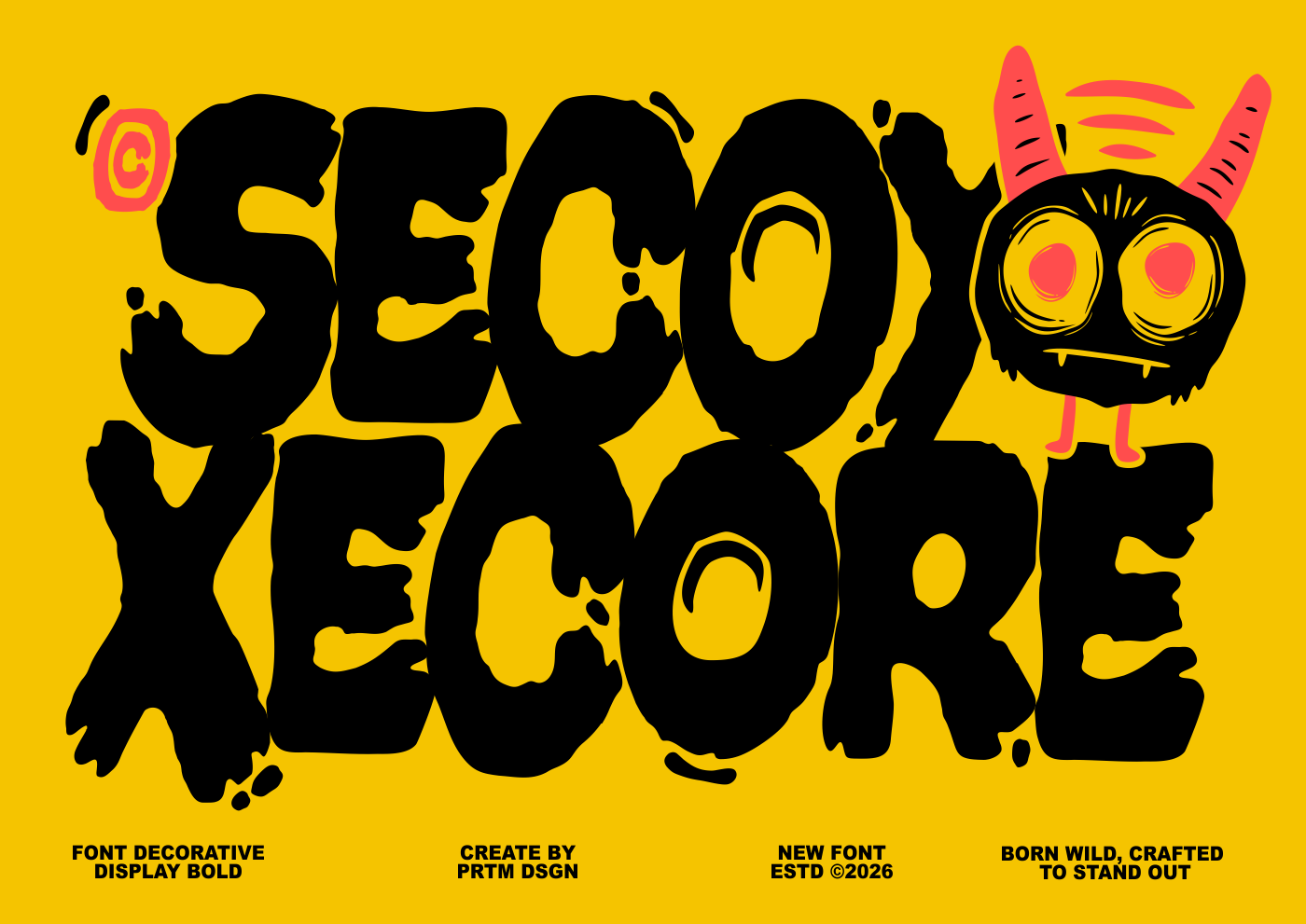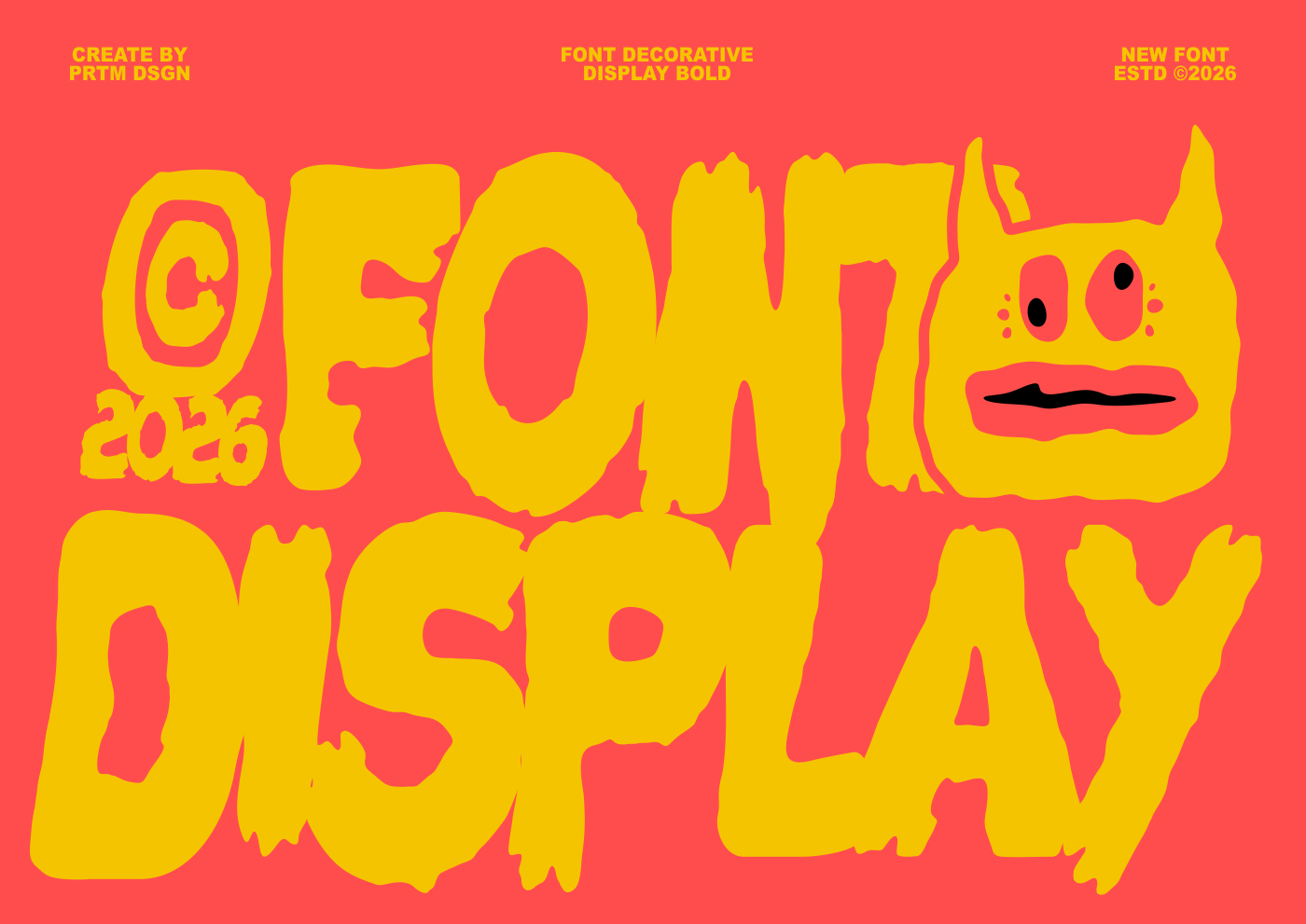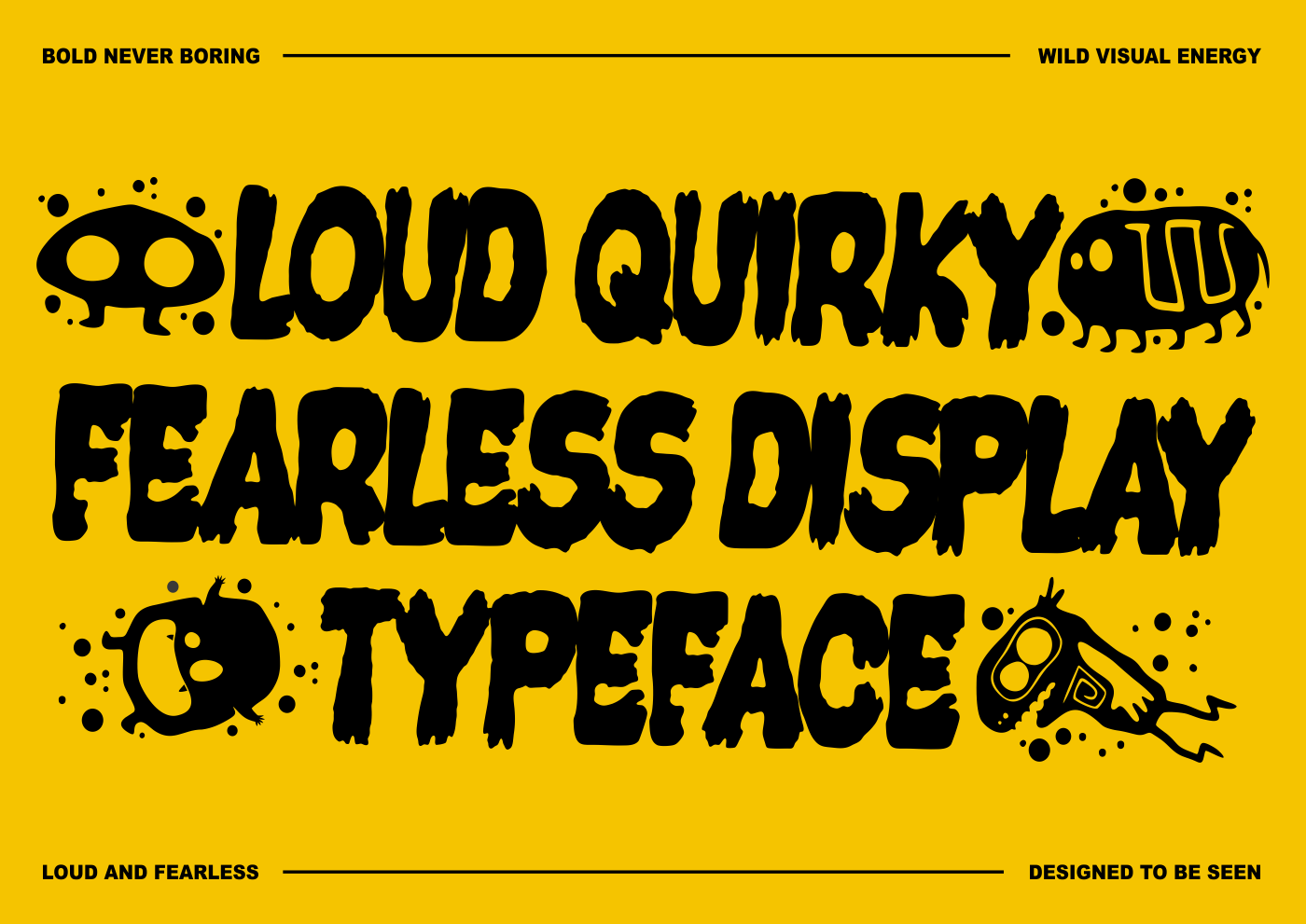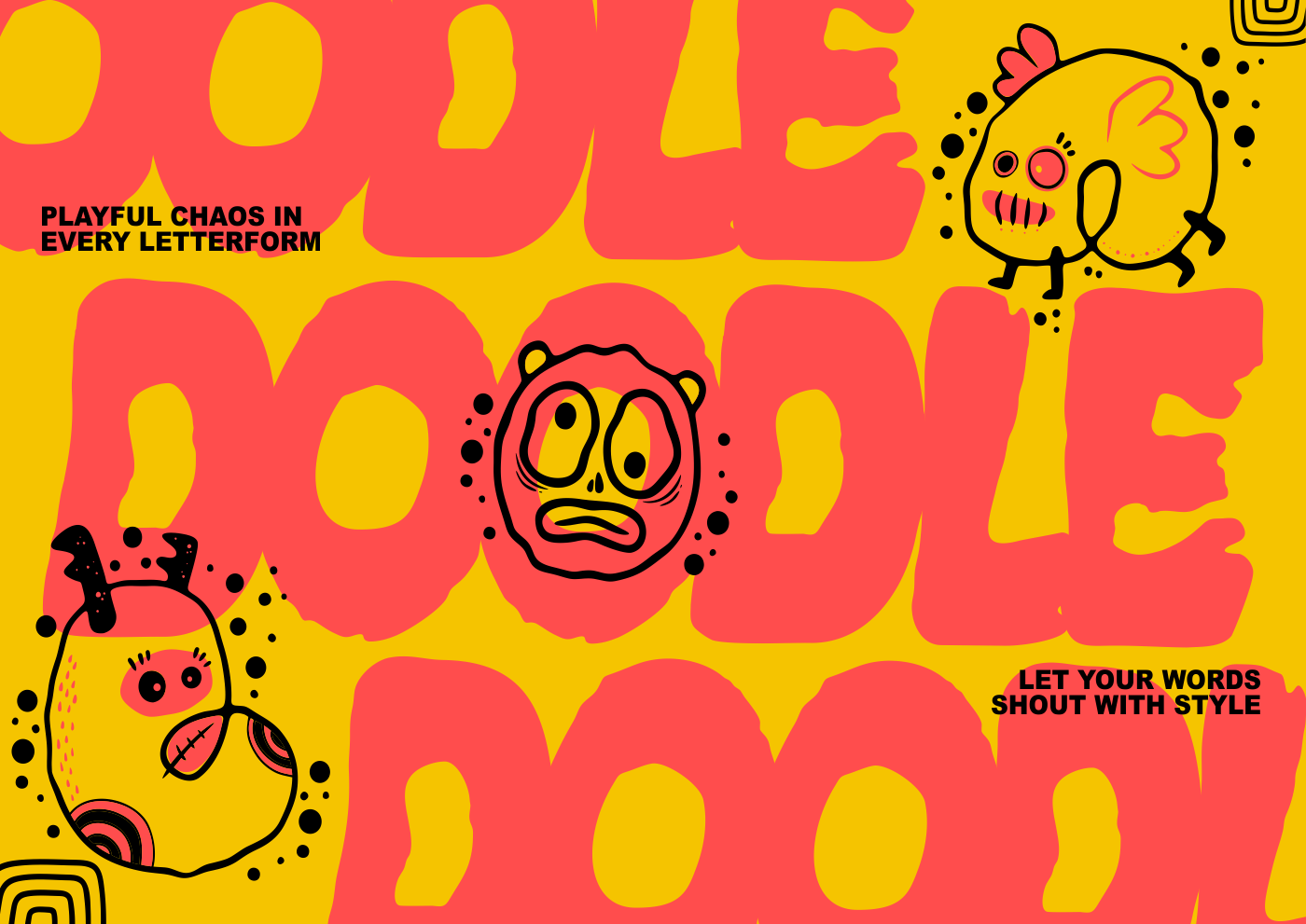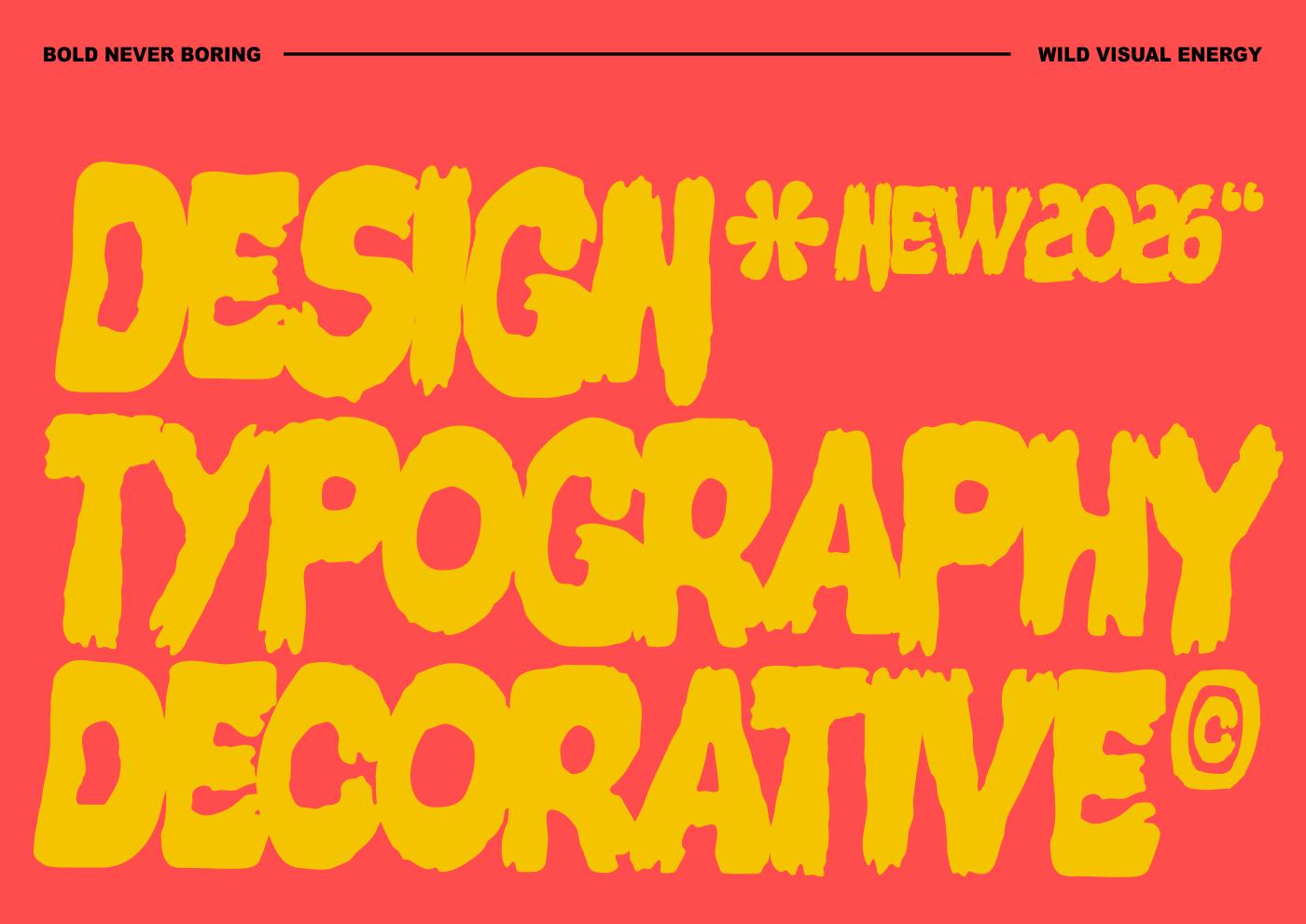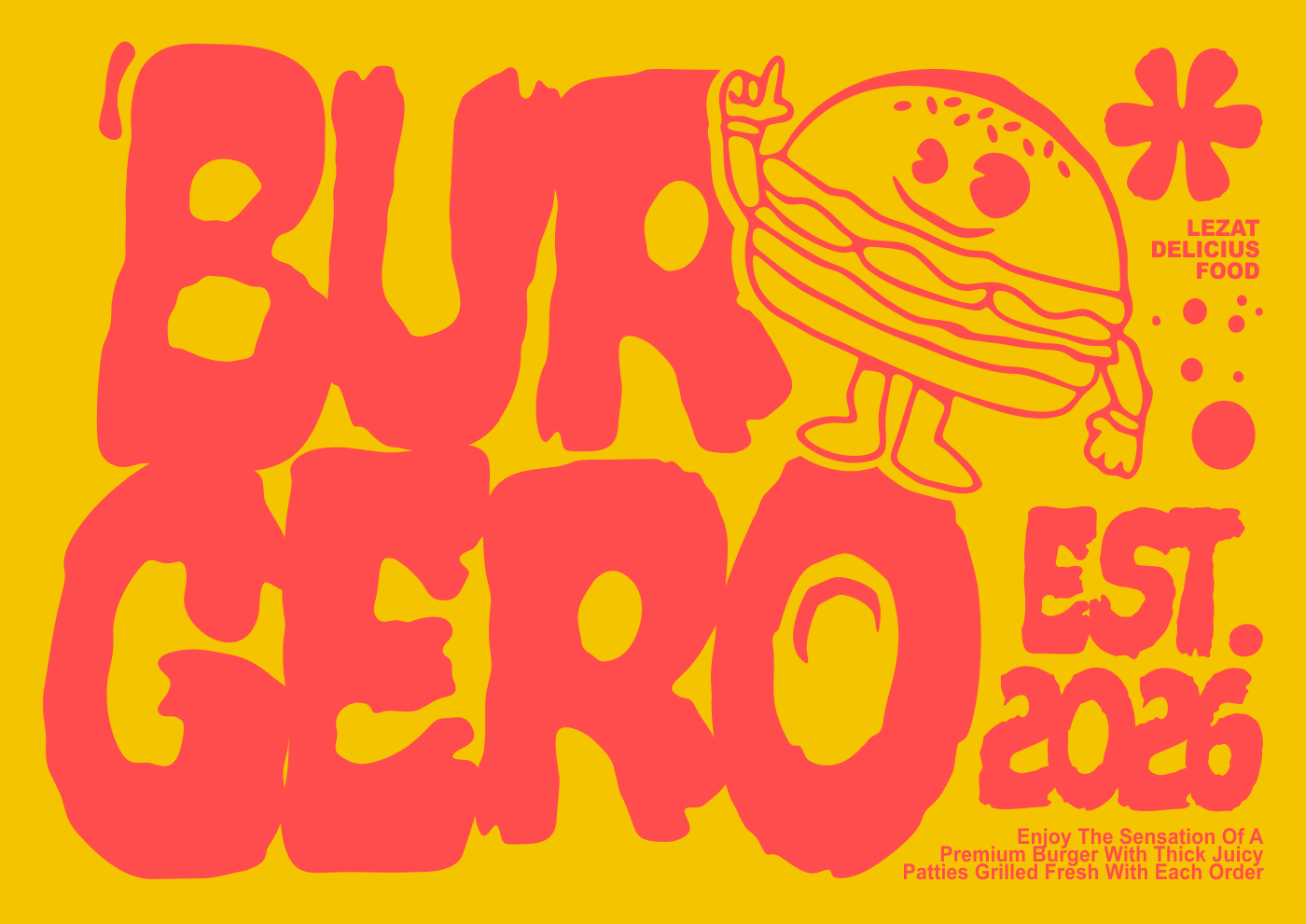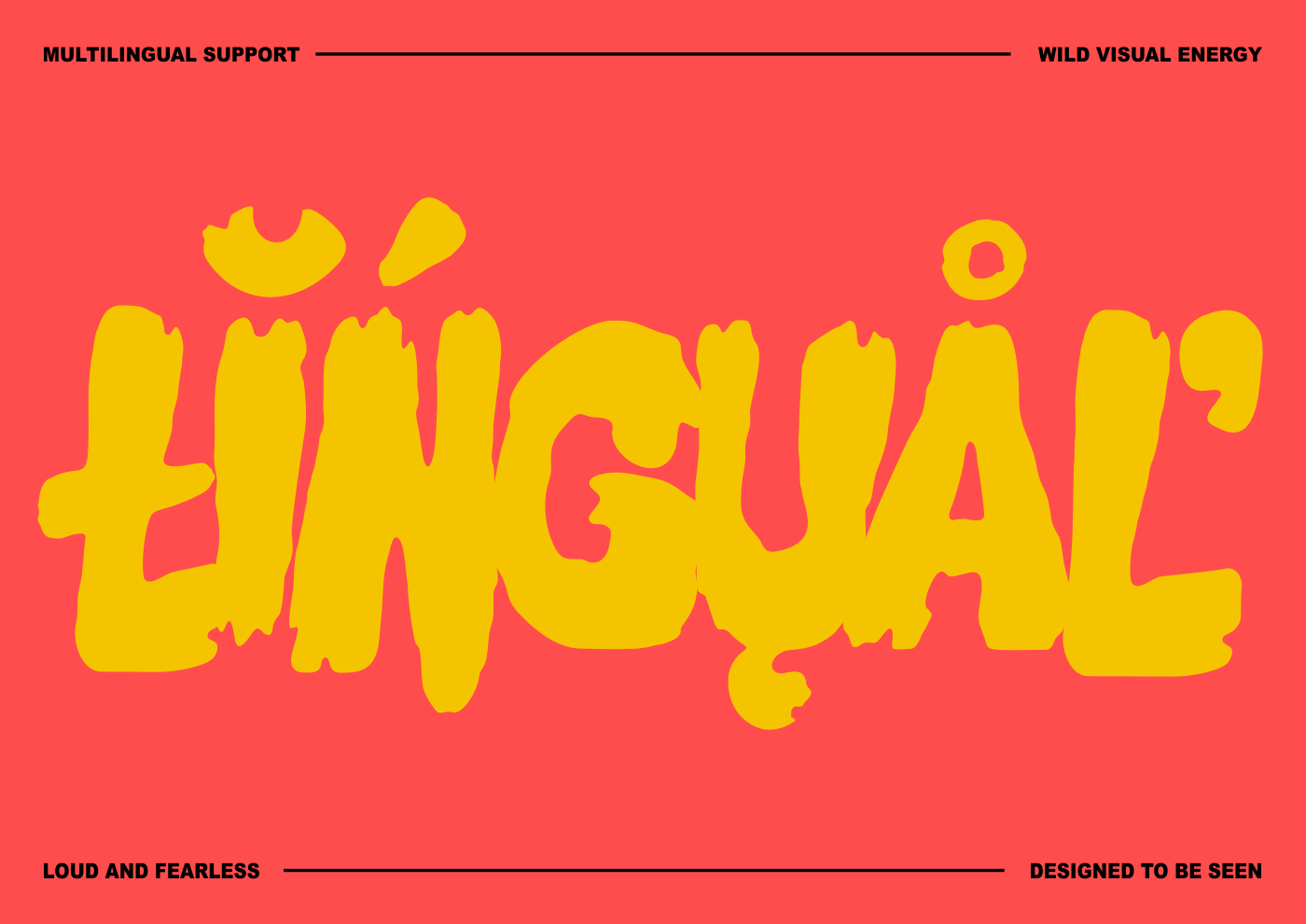
Introducing a bold, decorative typeface that breaks the rules and embraces imperfection. Designed with bold, hand-drawn shapes and rough, organic edges, this font delivers a strong visual impact with a playful yet rebellious personality. Each letter feels vibrant, uneven, expressive, and full of movement, making it perfect for projects that demand attention. Enhanced with unique illustrative elements and experimental shapes, this typeface transcends traditional typography and becomes a visual statement. Perfect for posters, album covers, streetwear branding, packaging, social media graphics, and any creative work that requires a bold, daring, and unforgettable look.